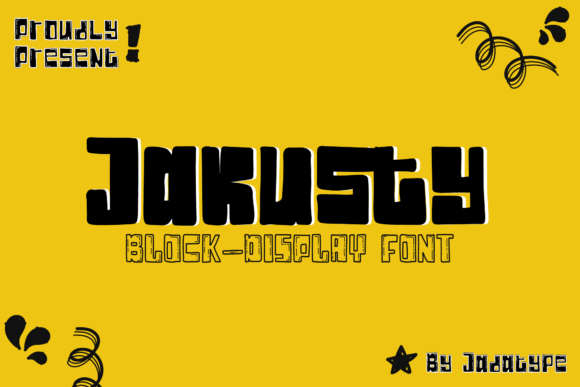
Step into the world of visual artistry with Jakusty Font, a remarkable display font family that dances between playfulness, boldness, and sheer delight. This exceptional font, meticulously crafted by jadatype, is not just a collection of letters but an invitation to unleash your creativity and leave an indelible impression on your audience.
Jakusty's inherent charm lies in its captivating square sides, giving it a unique and eye-catching presence. Each character exudes a playful spirit, demanding attention and injecting life into your designs. Whether you're crafting book titles, designing products and merchandise, or creating captivating social media graphics, Jakusty becomes your muse, transforming ordinary text into extraordinary statements.
With its PUA encoding, Jakusty opens up a world of possibilities, allowing you to effortlessly access a treasure trove of glyphs and swashes. Unleash your imagination and explore endless design combinations, infusing your projects with a touch of whimsy and individuality. This font family is your gateway to a universe of visual enchantment, empowering you to captivate and inspire.
Embrace Jakusty Font, the perfect companion for designers seeking to make a statement. Let its playful spirit ignite your creativity, its boldness command attention, and its fun-loving nature spread joy through your designs. Jakusty is more than just a font; it's an experience, a journey into the realm of visual storytelling, where your imagination reigns supreme.